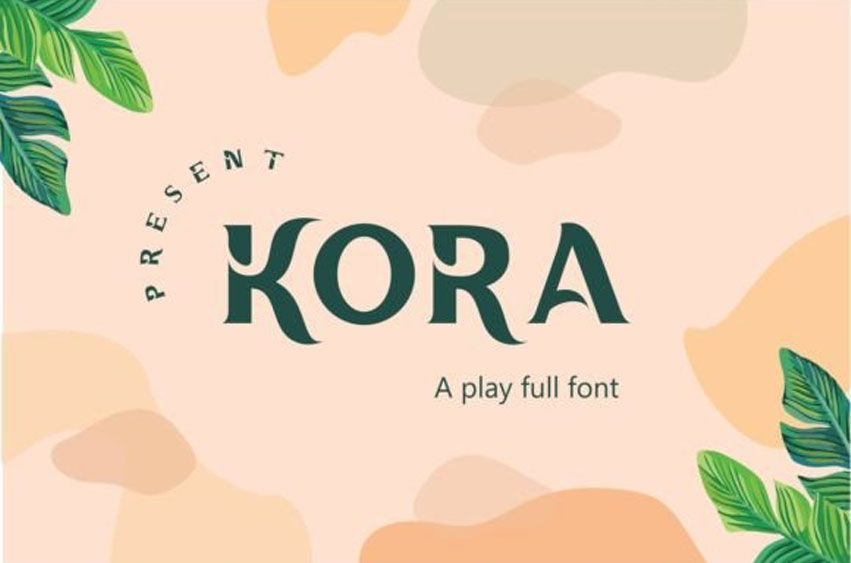
Kora Font
Kora Font is a beautiful tropical design with broken accents that make Kora fonts enter different types and levels of font display. Kora font presents how goodness can emerge from something simple.
Kora tends to be more of a display font. It is ideal for creating logos and titles for magazines, product promotions, product packaging design, advertising, and film production.